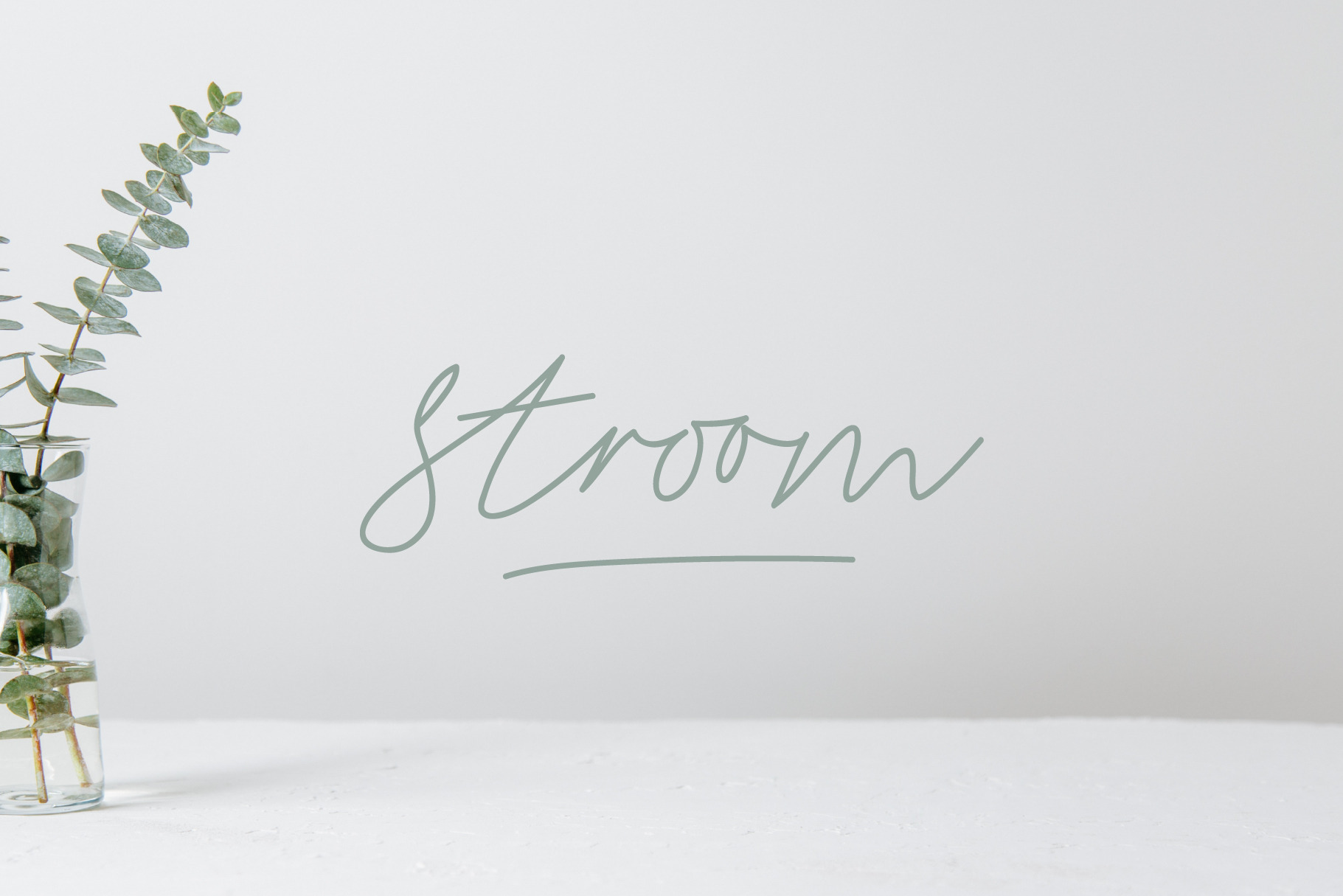
Stroom - Signature Script Font
Stroom Signature Script
Stroom - the act of flowing
Stroom was created from a natural handwritten script which makes for a great display font with a natural flow. Complete with hand-drawn glyphs and custom linked letters for a unique marker pen look. This is your perfect font for magazine titling, logo marks, signatures, invitations, cards, Instagram posts, and product packaging.
This set includes uppercase and lowercase letters, numerals, a range of punctuation and ligatures. All lowercase letters include beginning and ending swashes. All uppercase letters include beginning swashes which allow you to create an even more authentic custom-feel text.
This font will add a really unique and elegant finish to your project.
- Regular and bold weights
- Alternative glyphs
- Ligature sets